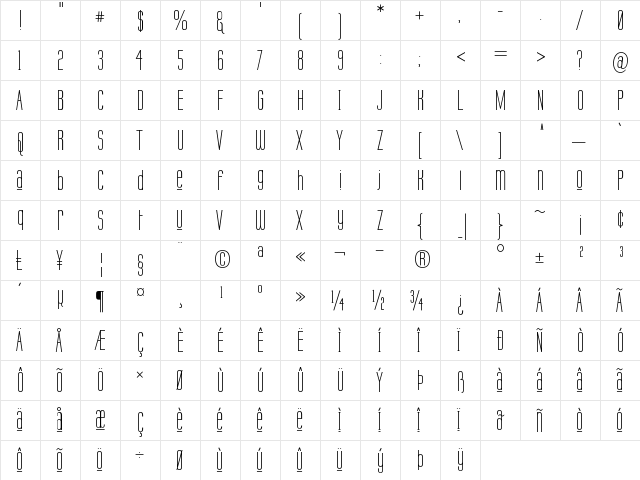
Labtop Unicase Upper Regular
Design Context for Labtop Unicase Upper Typeface
Labtop Unicase Upper offers clean, dependable letterforms without strong stylistic allegiance, making it a practical choice for designers who need flexibility.